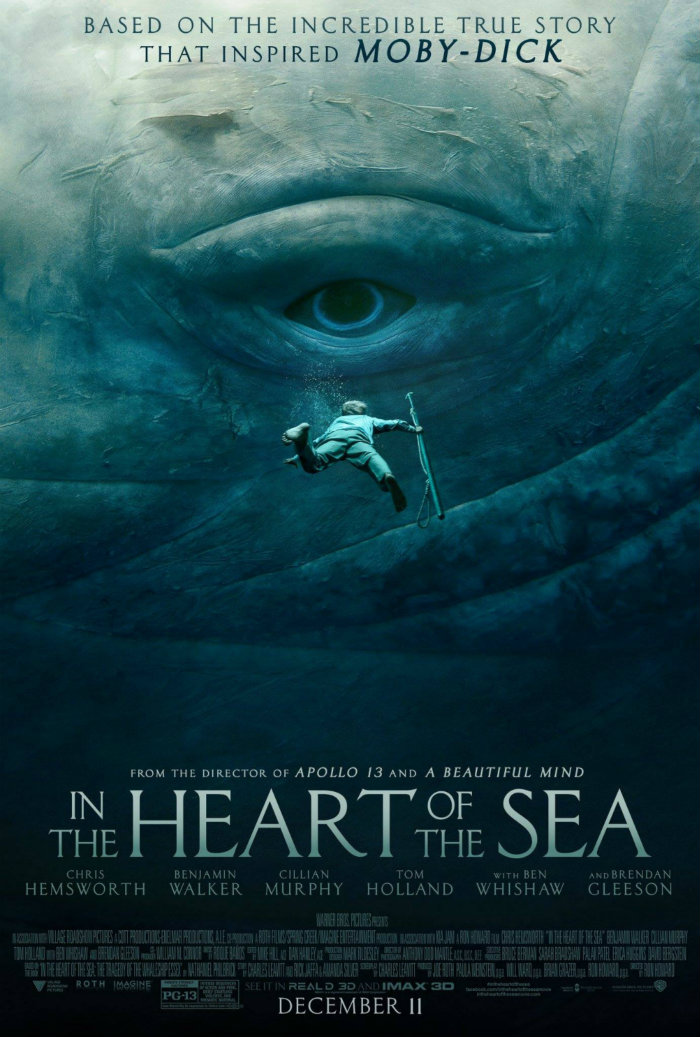
In the Heart of the Sea Font
AdventureIn the Heart of the Sea is a 2015 historical adventure-drama film directed and produced by Ron Howard and written by Charles Leavitt. Adapted from Nathaniel Philbrick's non-fiction book of the same name, about the sinking of the American whaler Essex in 1820, which inspired Herman Melville's 1851 novel Moby-Dick. The film follows the crew of the Essex as they struggle to survive in the open ocean after being stranded by the whale attack. The film stars Chris Hemsworth as the first mate of the Essex, Benjamin Walker as the captain, and Tom Holland as a young cabin boy.
Classic Roman Regular is the font used for the film title in the poster. Classic Roman, an all-capitals headline typeface that draws inspiration from Roman inscriptions, and is quite close to Trajan font. The inscribed font is a stylish option for headlines in both traditional and modern designs.